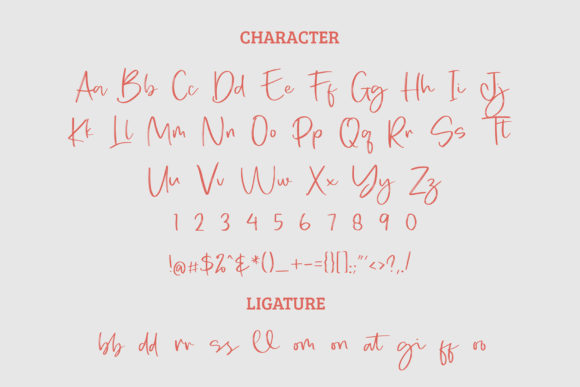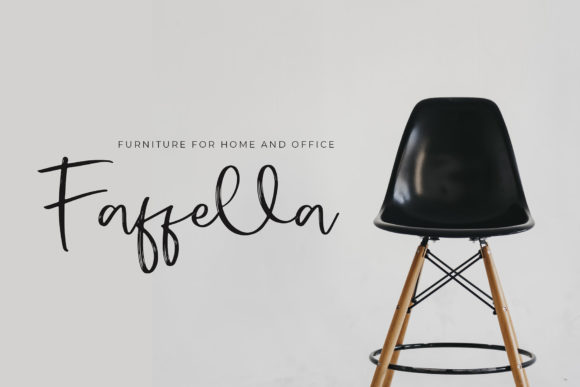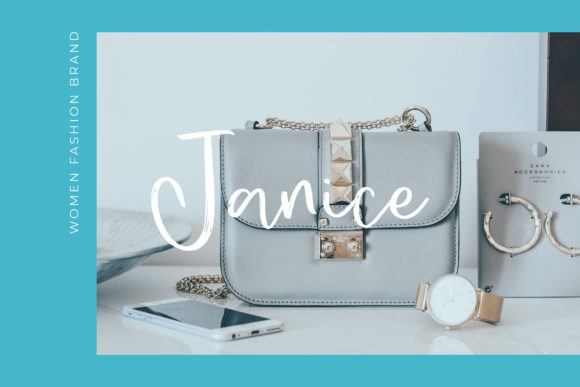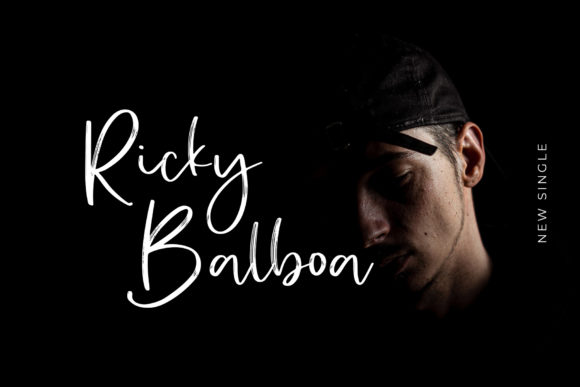
About Pabbiolla Font
Pabbiolla is a brushed script font, defined by a sweet touch. Delicate and flowing, this font is ideal for a wide variety of designs.